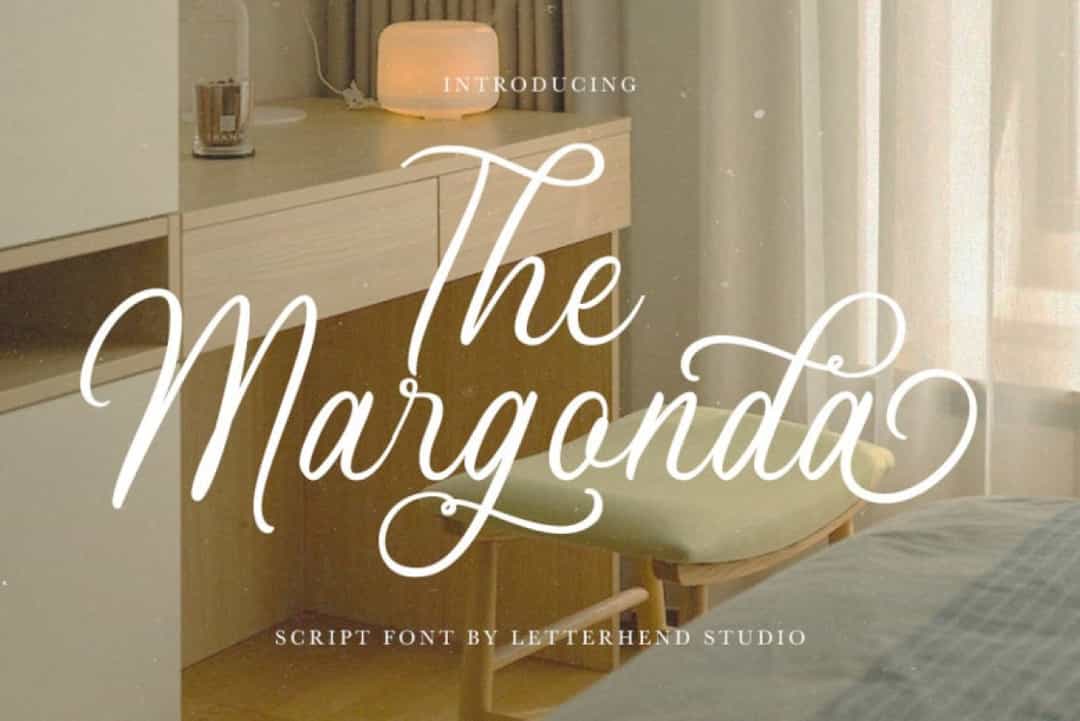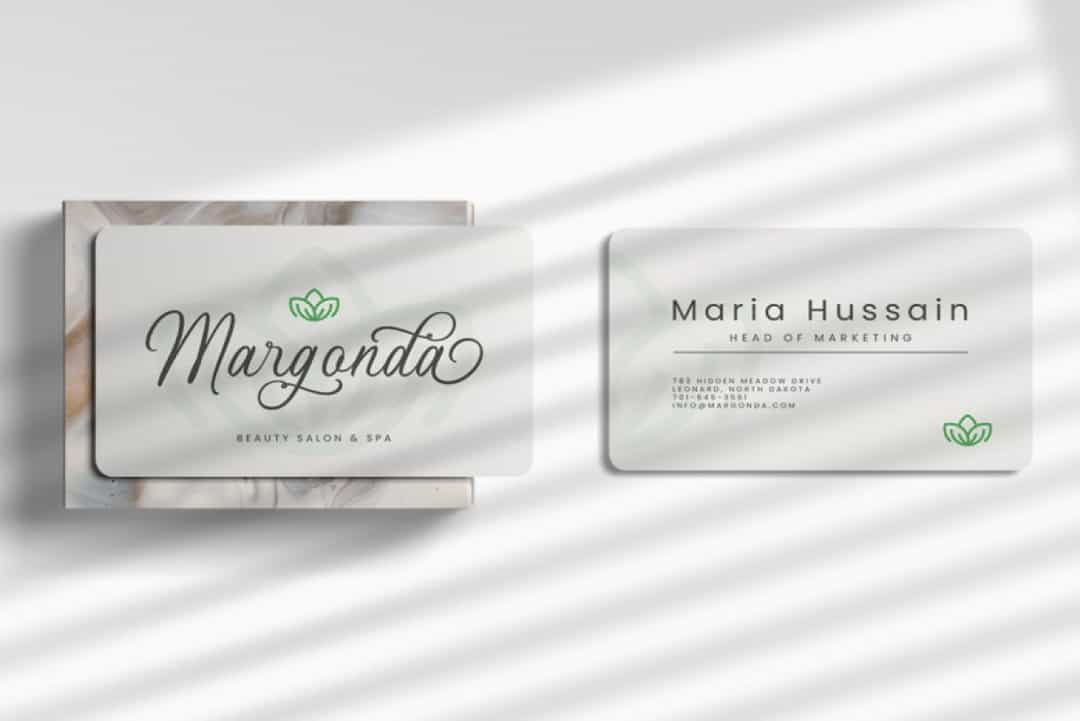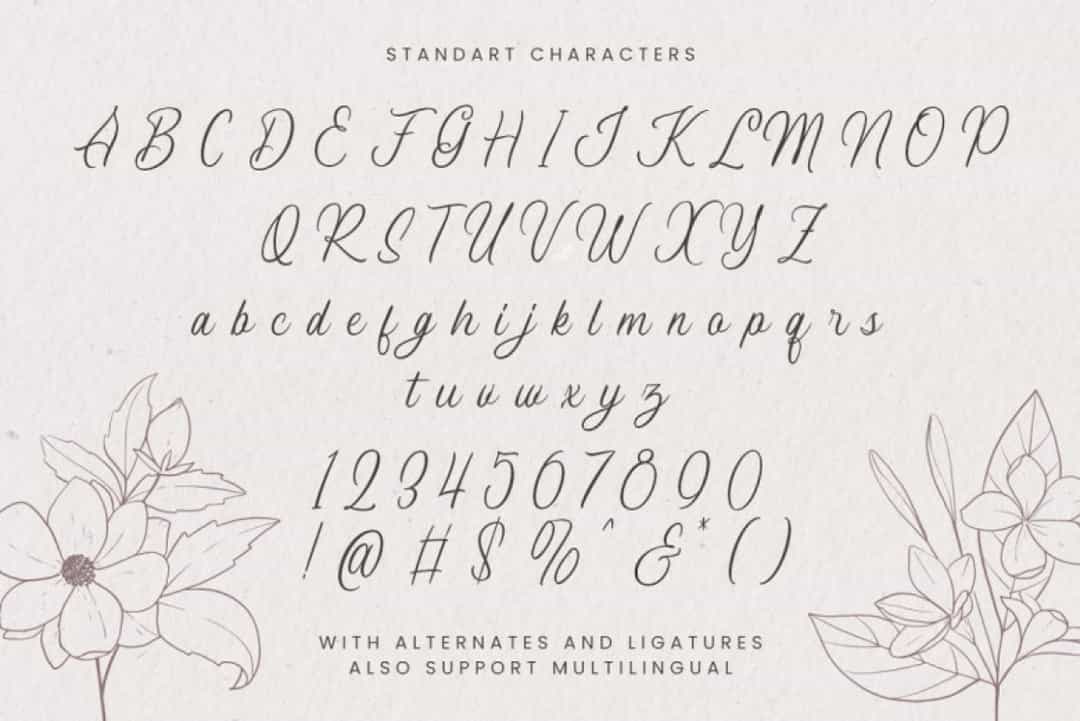
Margonda font is an eye-catching script calligraphy font that exudes feminine grace and femininity, with delicate strokes that add romantic charm. Perfect for designs needing an eye-catching effect, the Margonda font’s delicate strokes create an exquisite visual appearance perfect for giving designs an alluring and romantic aesthetic.